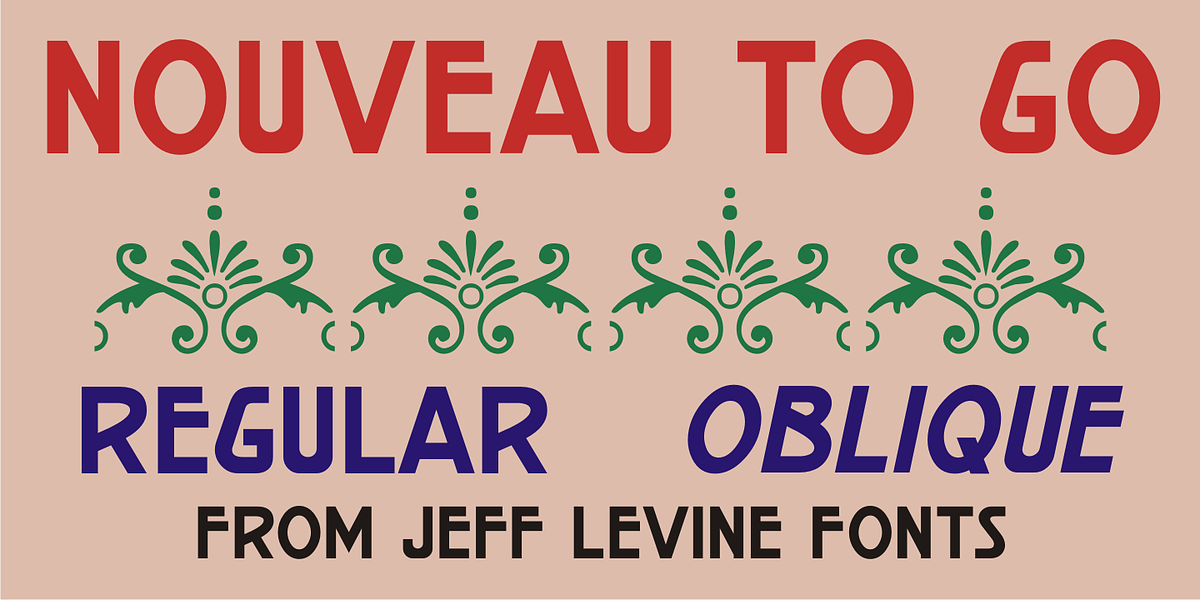
Nouveau To Go JNL
Nouveau To Go JNL is the digital version of the hand lettered title found on the 1915 sheet music for the song “Don’t Bite the Hand That’s Feeding You”, and is available in both regular and oblique versions.